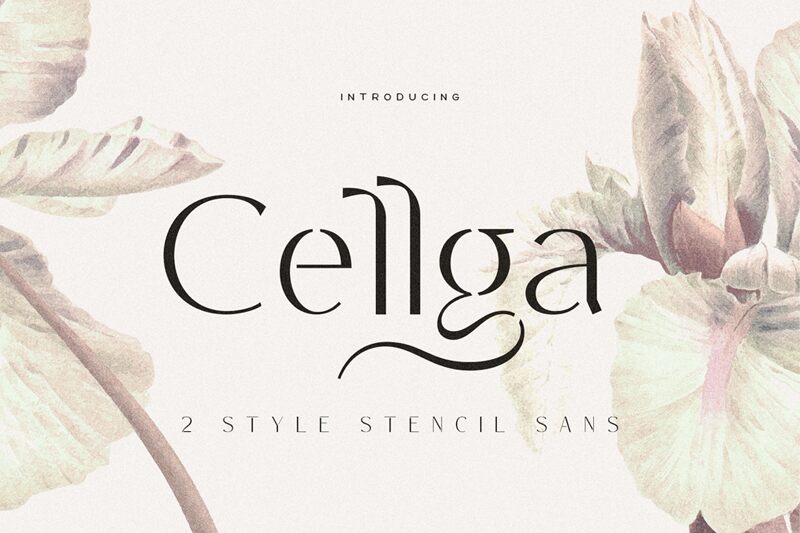
Cellga, a stunning display font crafted by renowned designer Alit Design, combines the elegance of delicate stencil lines with a touch of modernity. Its semi-light weight adds an airy charm to any project. Whether you're creating eye-catching banners, sophisticated logos, or captivating packaging designs, Cellga is the ideal choice. This versatile font lends itself beautifully to a myriad of projects, from fashion branding and art posters to contemporary websites and elegant invitations. Embrace Cellga's graceful aesthetics and make your creations stand out with its unique blend of delicacy and style.
Cellga